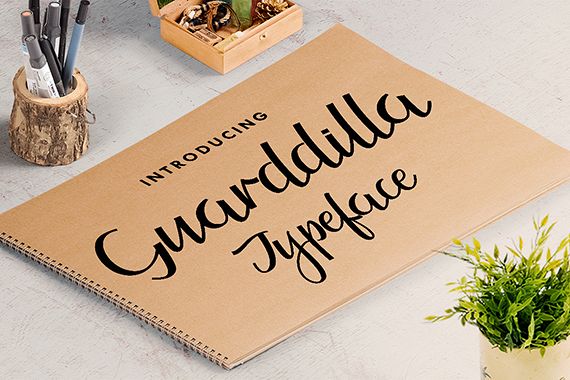
Guarddilla Typeface
Guarddilla Typeface.
Howdy.. Introducing "Guarddilla Typeface"
"Guarddilla Typeface" is a hand made, callicraphy style, which was created to meet the needs of your next design project.
Guarddilla Typeface, Can used for various purposes. such as the title, logo, correspondence, wedding invitations, letterhead, signage, labels, newsletters, posters, badges, t-shirt, etc.